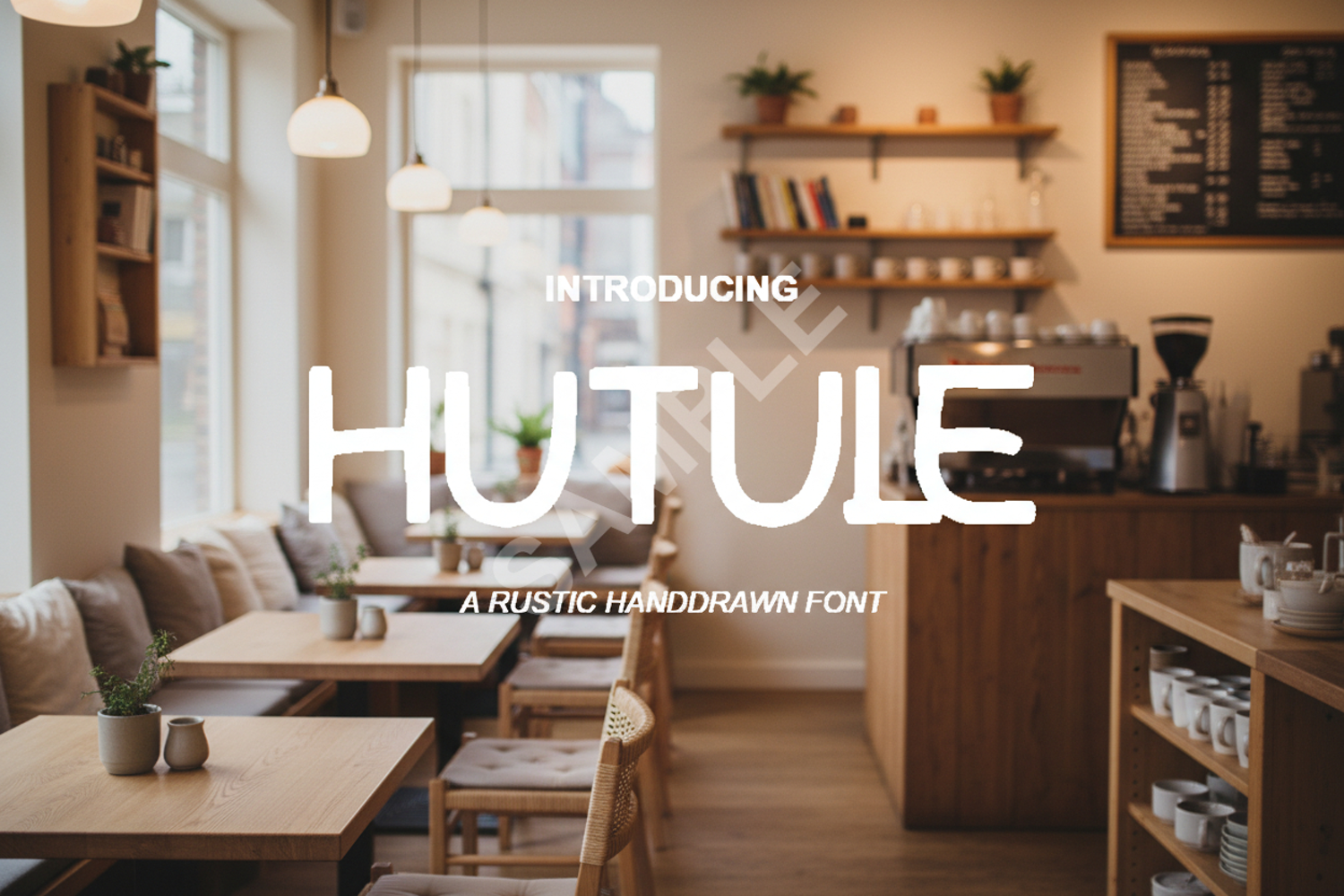
Hutule - Elegant Modern Serif Display Font
Hutule
Hutule is a sophisticated and premium serif font meticulously crafted for high-end design projects. Combining classic proportions with contemporary stylistic touches, Hutule offers a refined aesthetic that commands attention while maintaining exceptional legibility. Whether you are aiming for timeless luxury or modern minimalism, this typeface provides the versatility needed to elevate your creative vision.
- Luxury Branding and Visual Identity
- Professional Logo Design
- Editorial Layouts and Magazine Headers
- Elegant Wedding Invitations and Stationery
- High-end Product Packaging
- Sophisticated Social Media Graphics and Quotes
- Website Headers and Digital Advertisements